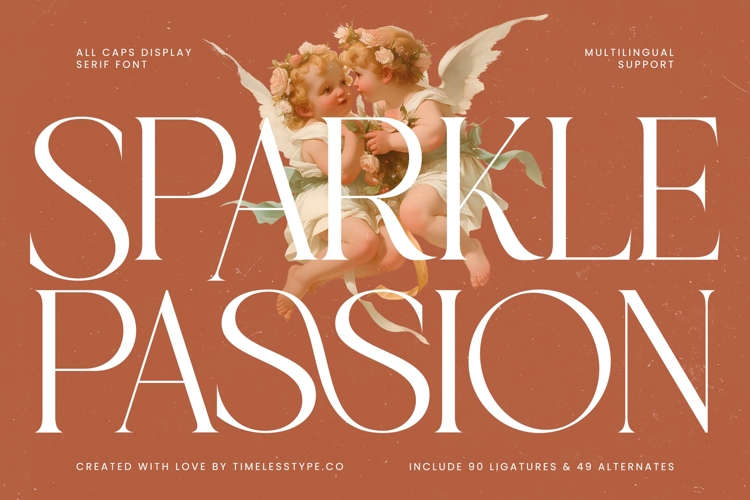
Sparkle Passion - All Caps Display Serif Font
The Sparkle Passion Typeface is an all-caps display serif font with an elegant, luxurious, and romantic look. Featuring 90 ligatures and 49 stylistic alternates, this font provides exceptional flexibility to create typography that is varied, expressive, and captivating. With its tall, slender letterforms and sharp contrasts, Sparkle Passion is designed to convey sophistication and class, making it the perfect choice for creative projects that emphasize both classic and modern aesthetics.
This typeface is highly effective in editorial design, particularly for fashion magazines, artistic layouts, and book covers. Its wide range of ligatures and alternates allows typographic compositions to appear more dynamic, stylish, and full of visual variety.
In branding and packaging, Sparkle Passion is ideal for high-end products such as perfumes, cosmetics, jewelry, and fashion labels. Its slim and elegant typographic character delivers an exclusive image, ensuring logos and brand identities stand out as iconic and memorable.
For entertainment and promotional design, this font adds a theatrical and dramatic touch, making it perfect for movie posters, music album covers, event promotions, and art festival branding. Its decorative serif style enhances visual storytelling with a captivating romantic aura.
In the field of digital design, Sparkle Passion performs seamlessly across social media content, premium websites, digital advertising, and motion graphics. With multilingual support, it is highly relevant for global campaigns requiring consistent elegant aesthetics.
In short, Sparkle Passion Typeface is an all-caps serif display font created to embody beauty, elegance, and refined artistic flair. Perfect for editorial, branding, packaging, entertainment, advertising, and digital campaigns, this font transforms typography into a timeless and enchanting visual icon.